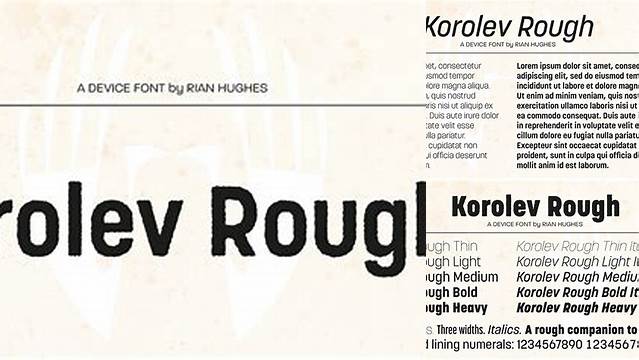
1. What is Korolev Rough Condensed Medium Font?
Korolev Rough Condensed Medium Font is a versatile typeface known for its unique blend of modern aesthetics and a touch of rugged charm. This font stands out because of its condensed form, which allows you to pack more text into a limited space without sacrificing readability. The 'rough' aspect gives it a textured, slightly distressed look, perfect for projects where you want to convey a sense of authenticity or handcrafted quality. The medium weight strikes a balance, making it suitable for both headlines and body text. Whether you’re working on a branding project, designing a poster, or creating digital content, Korolev Rough Condensed Medium Font can add a distinct visual appeal. The font's distinct characteristics make it a favorite among designers looking for a typeface that is both modern and slightly edgy. Its condensed nature is particularly useful in designs where space is at a premium, such as website headers, packaging, and print materials. The slightly textured appearance ensures that it doesn't appear too sterile, adding warmth and character to your work. Understanding the nuances of this font allows you to leverage its strengths effectively in a variety of creative applications. For instance, when used in branding, it can help a company project a specific image – perhaps one that is both contemporary and a little unconventional. When incorporated into editorial design, it can draw the reader's eye and create visual interest. In digital contexts, its readability and aesthetic appeal make it a valuable asset for websites and user interfaces. The blend of condensed form and rough texture also makes it an excellent choice for designs that aim to stand out. It's not just about fitting more characters into a line; it's about creating a unique visual identity that resonates with the audience. Consider how the font’s characteristics align with the overall message and style of your project. Are you aiming for a modern yet approachable feel? Or perhaps a rugged, handcrafted vibe? Korolev Rough Condensed Medium Font can be a key element in achieving these goals. Its adaptability across different mediums – from print to digital – ensures that your brand or design maintains a consistent look and feel, regardless of the context. By understanding its capabilities, you can ensure it becomes a valuable asset in your design toolkit. Remember, the most effective use of any font comes from a thoughtful understanding of its characteristics and how they align with your creative vision.
2. Key Features of Korolev Rough Condensed Medium Font
Korolev Rough Condensed Medium Font boasts several key features that make it a standout choice for various design projects. First and foremost, its condensed form allows for efficient use of space, making it ideal for headlines, titles, and other areas where real estate is limited. The 'rough' texture adds a distinct character, giving the font a handcrafted and slightly vintage feel. This is perfect for designs that aim to convey authenticity and a personal touch. The medium weight ensures readability across different sizes and mediums, striking a balance between boldness and clarity. Its unique aesthetic, blending modern and vintage elements, makes it versatile enough for a wide range of applications. Whether you're designing a logo, a website, or print materials, Korolev Rough Condensed Medium Font can bring a unique visual element to your work. The font’s versatility is further enhanced by its suitability for both headings and body text, depending on the design context. When used in headings, its condensed and textured appearance draws attention and creates a strong visual impact. In body text, its medium weight ensures it remains legible and comfortable to read. This adaptability makes it a valuable asset for designers who need a font that can perform well in various roles within a single project. One of the most significant features is its ability to add personality to designs. The rough texture is particularly effective in breaking away from the sterile and overly polished look that can sometimes plague modern designs. It introduces an element of human touch, making the design feel more approachable and authentic. This can be especially useful in branding, where creating a memorable and relatable image is crucial. The font's condensed nature also contributes to its functionality, allowing designers to fit more text into confined spaces without compromising legibility. This is particularly useful in responsive design, where content needs to adapt to different screen sizes. The condensed form ensures that text remains prominent and readable, regardless of the device being used. Moreover, the font’s distinct appearance helps in creating visual hierarchy. When paired with simpler, cleaner fonts, Korolev Rough Condensed Medium Font can stand out and guide the viewer’s eye to important elements. This is essential for effective communication and ensuring that the design’s message is conveyed clearly. In summary, the key features of Korolev Rough Condensed Medium Font – its condensed form, rough texture, medium weight, and versatility – make it a powerful tool in any designer's arsenal. Its ability to balance modernity with a touch of vintage charm makes it a timeless choice for a wide range of projects. By understanding and leveraging these features, you can create designs that are both visually appealing and highly effective in conveying your intended message.